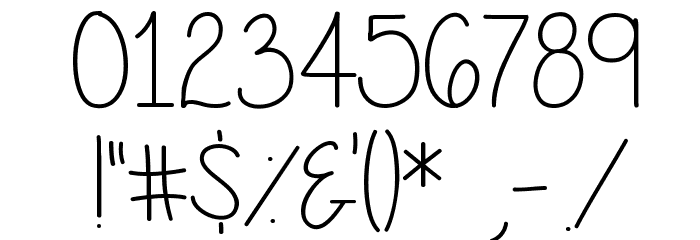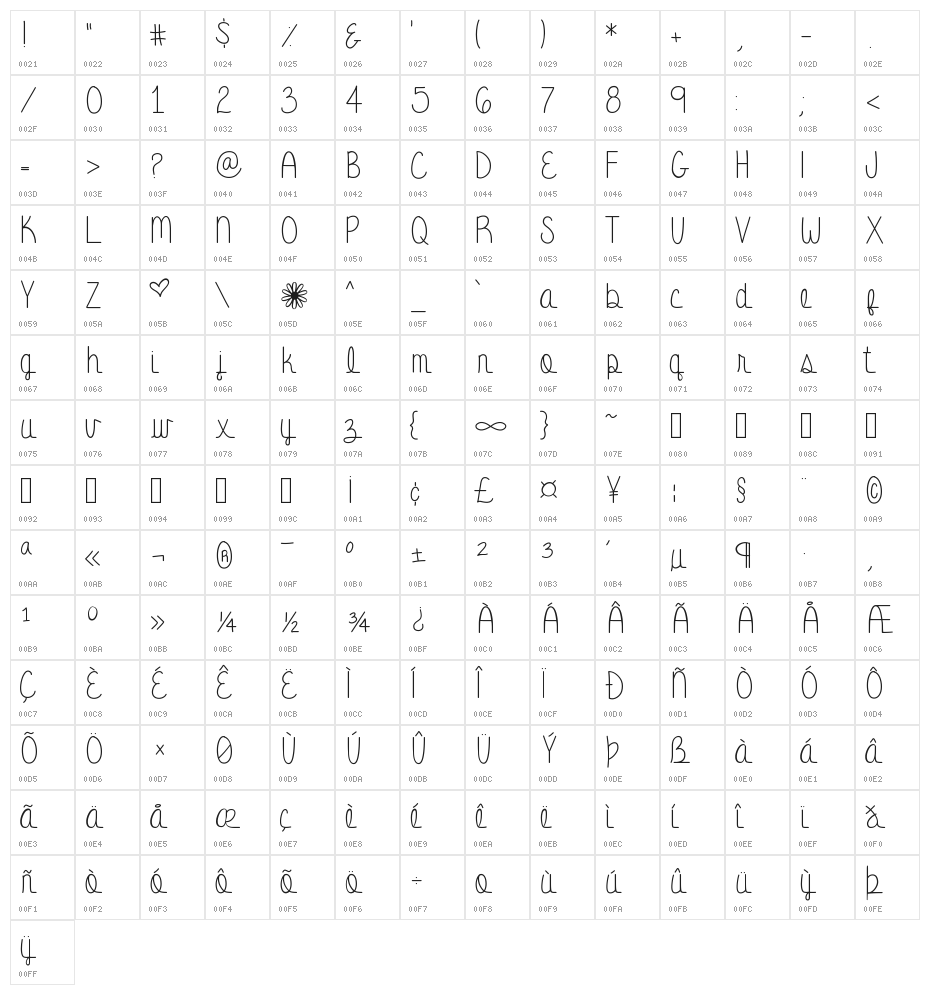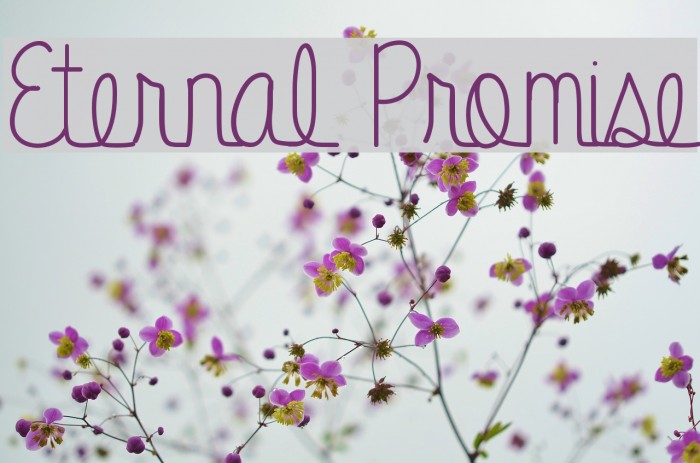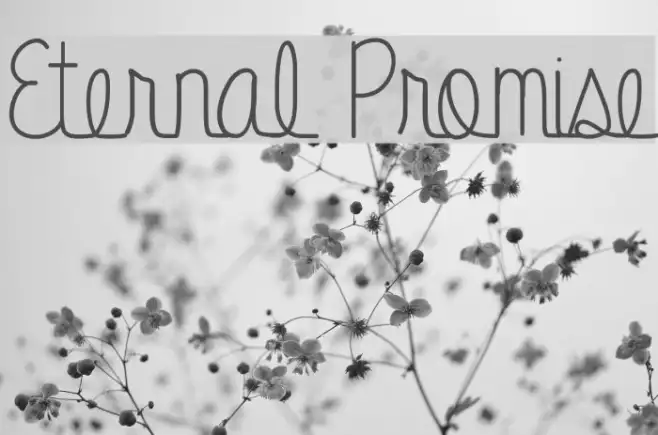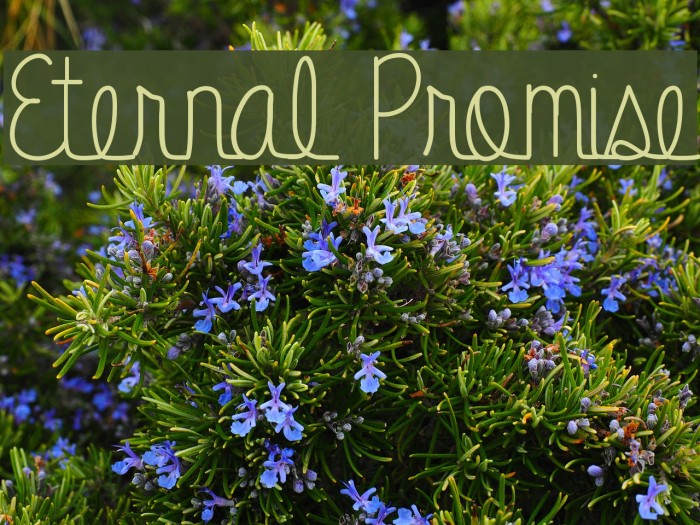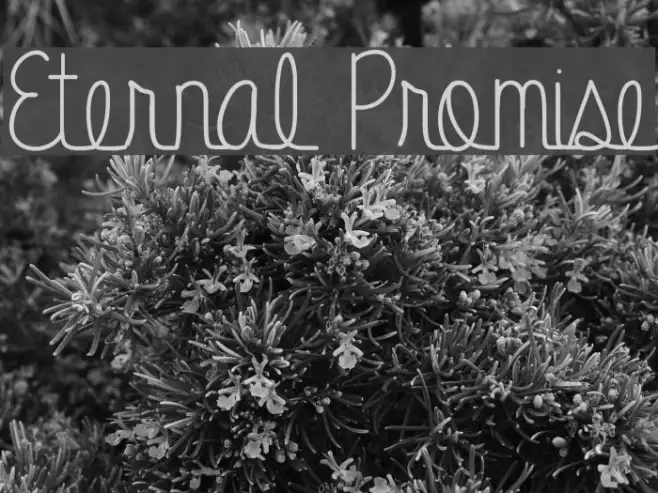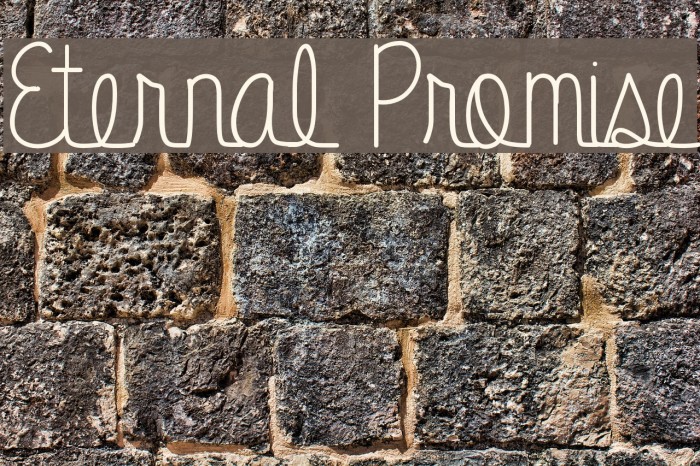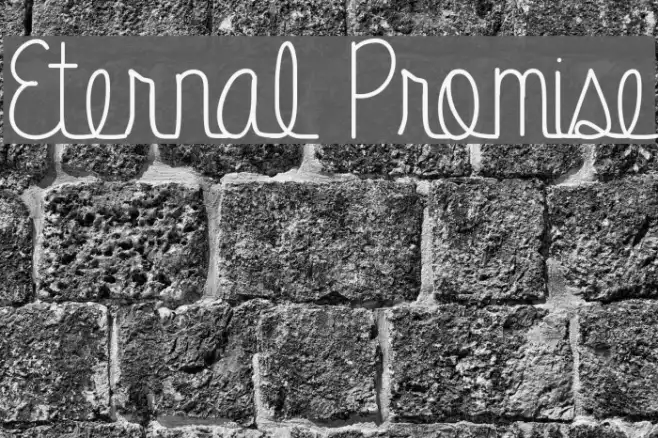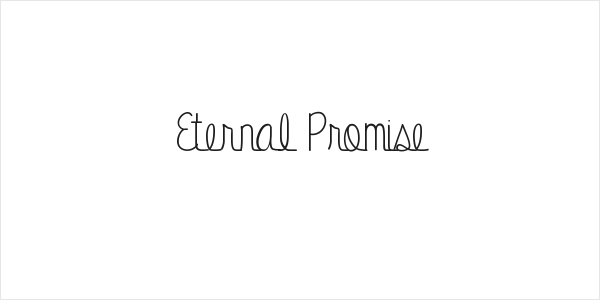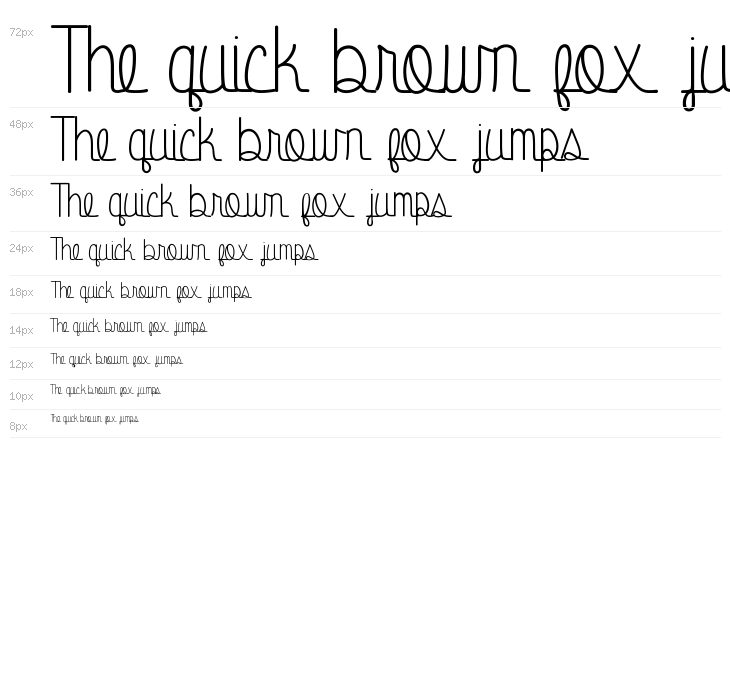
Eternal Promise Font
Eternal Promise Description
This font features a unique, handwritten style with elongated, narrow letterforms that give it a whimsical and playful appearance. The characters are thin with consistent stroke width, creating a light and airy feel. The uppercase and lowercase letters maintain a consistent height, contributing to a uniform look. The numerals and special characters are designed to match the overall aesthetic, with a similar narrow and tall structure. This font's distinctive style makes it suitable for creative and informal applications.
| Use Case | Logos, Invitations, Creative projects |
| Proposed Projects | Ideal for greeting cards, invitations, children's books, and playful branding projects. |